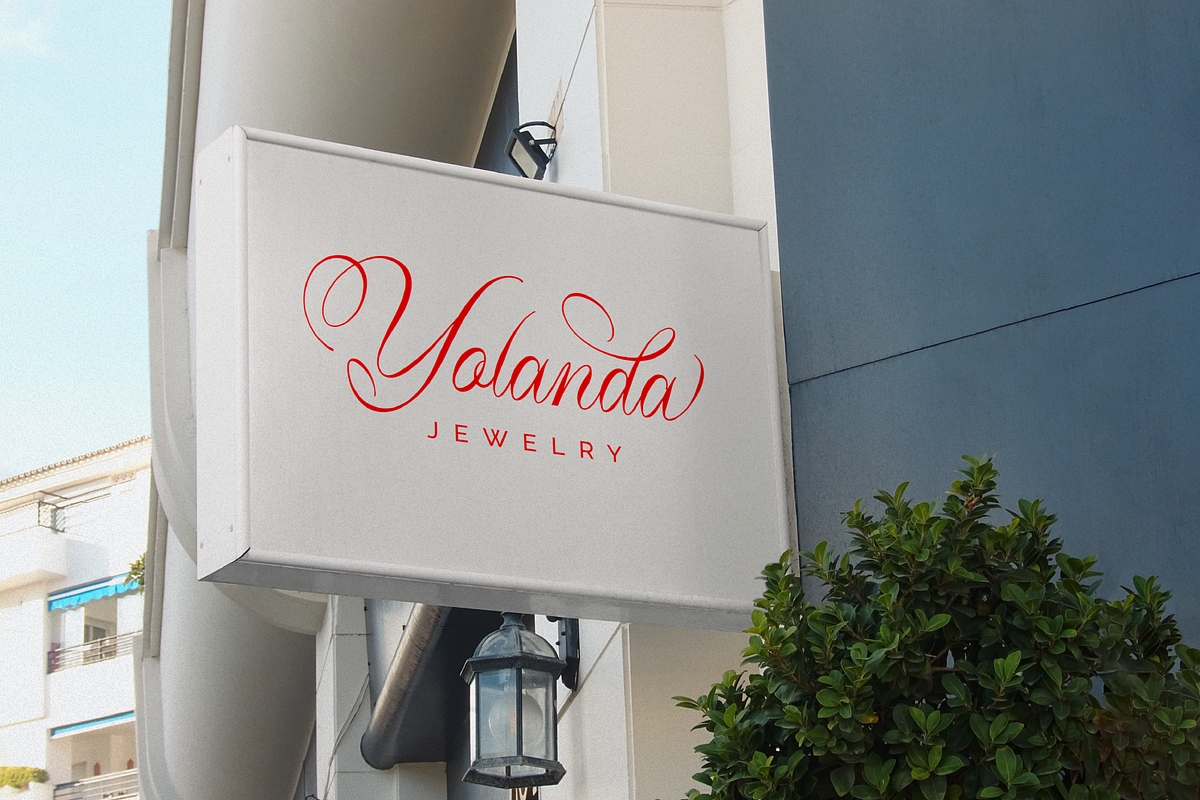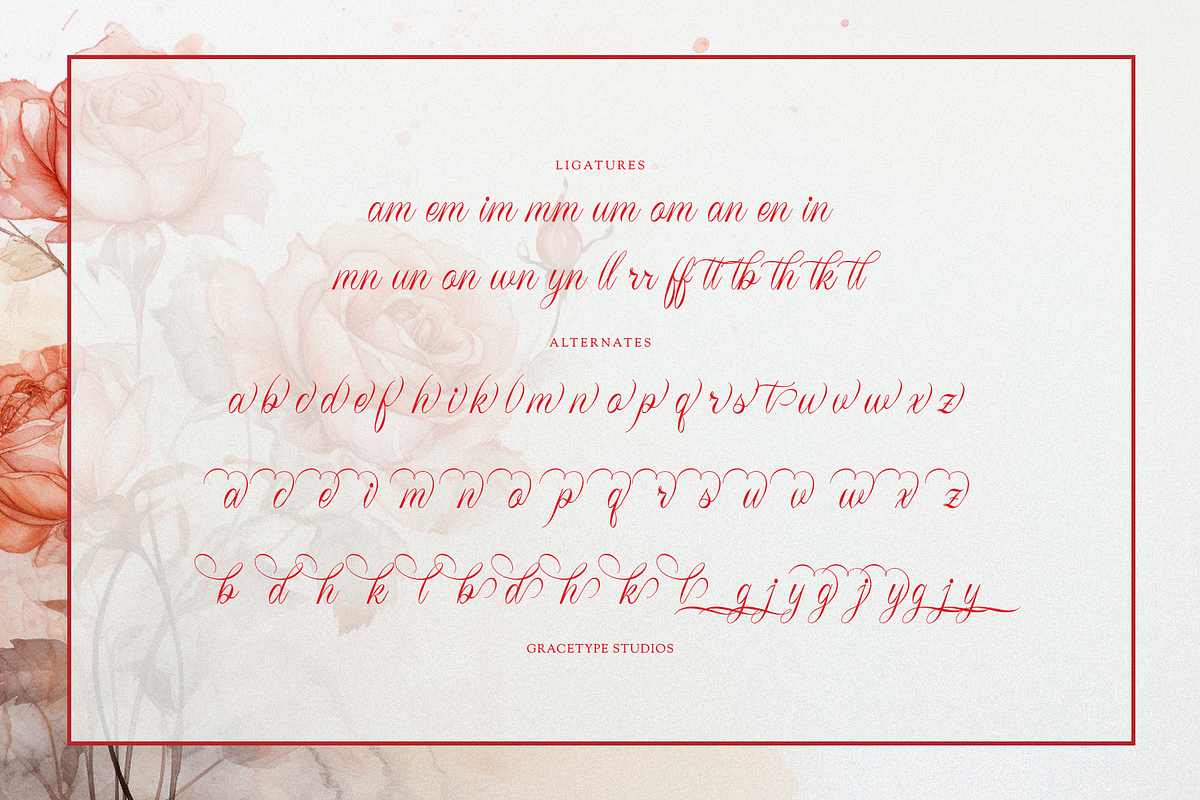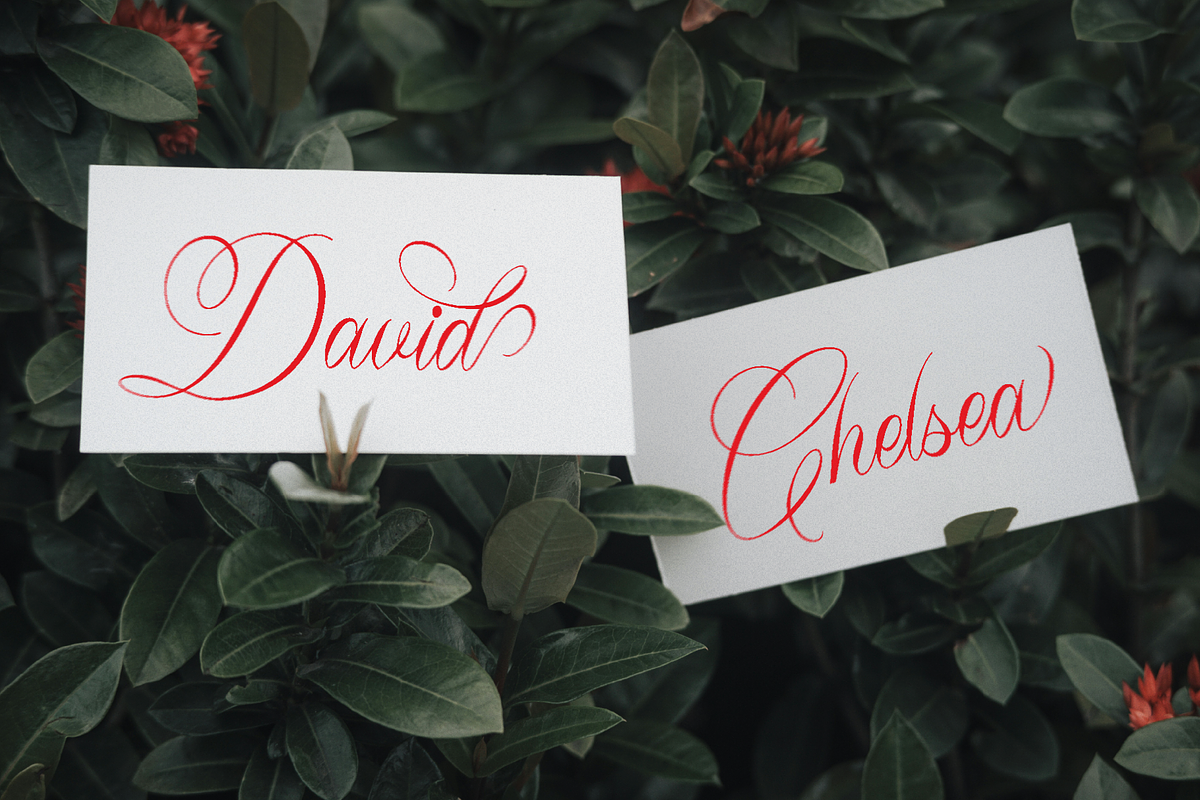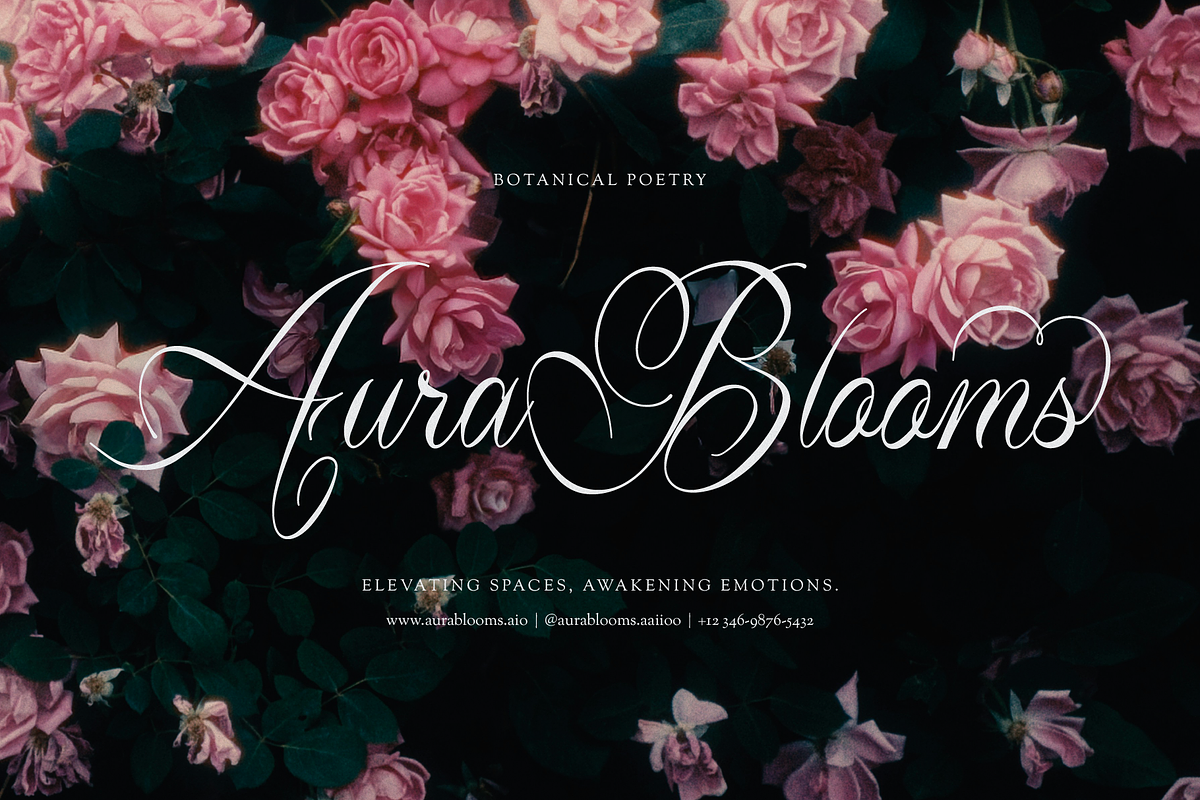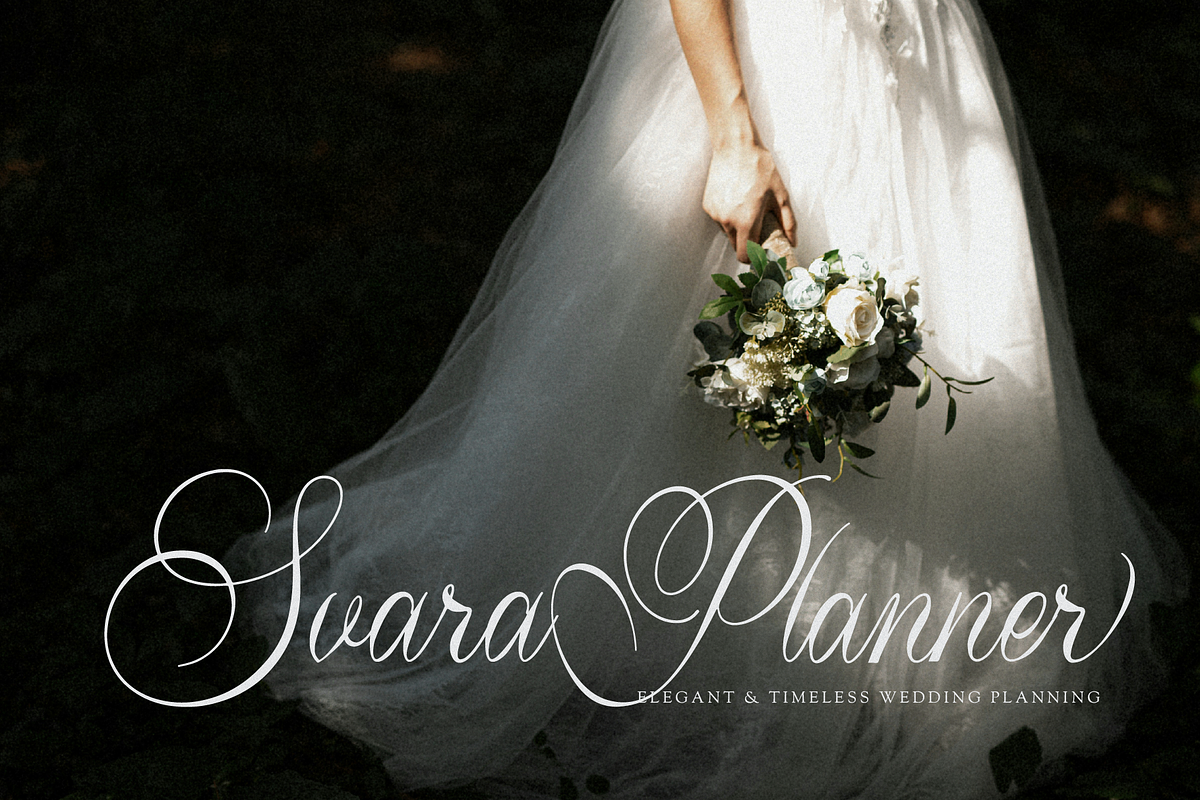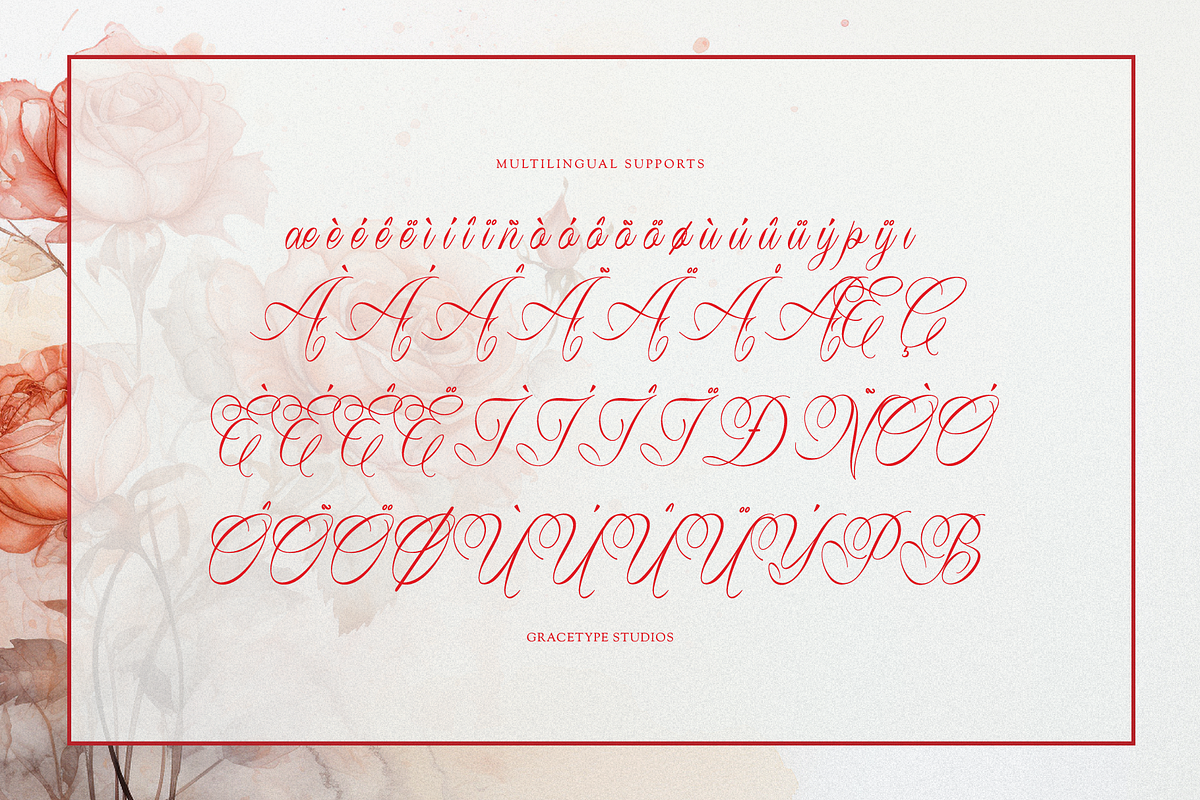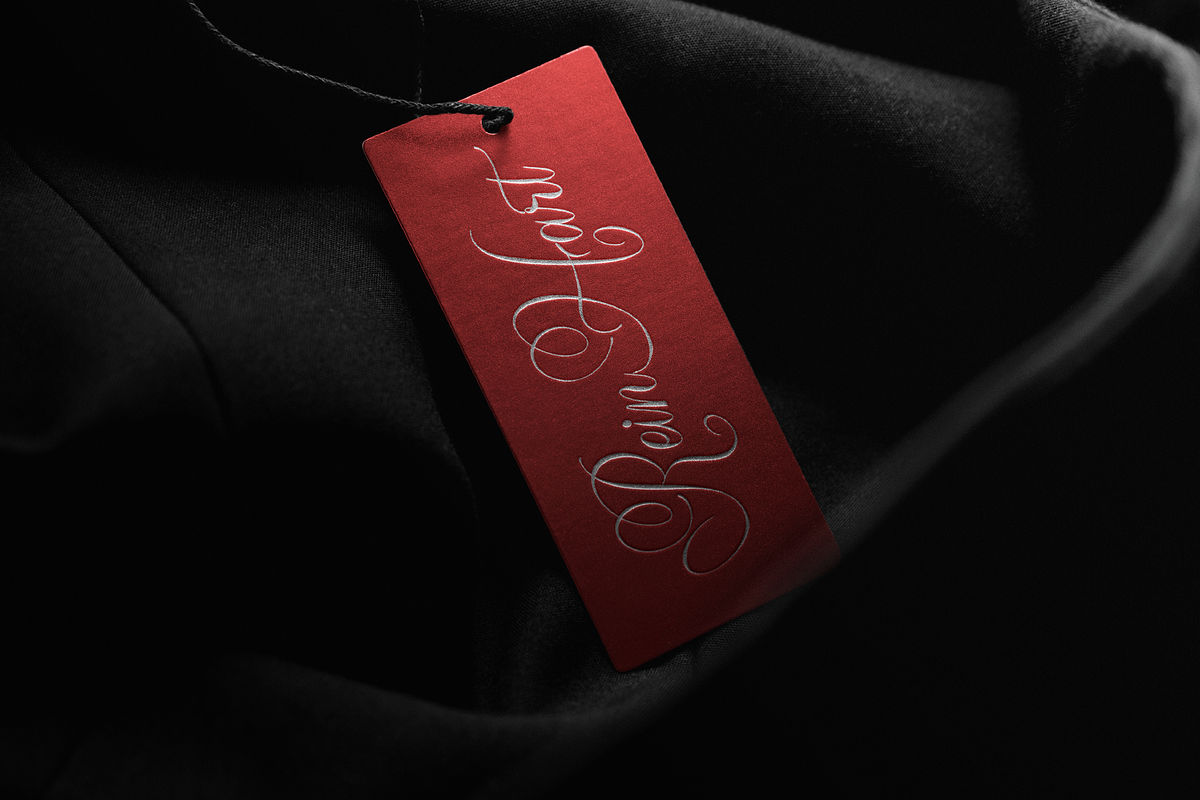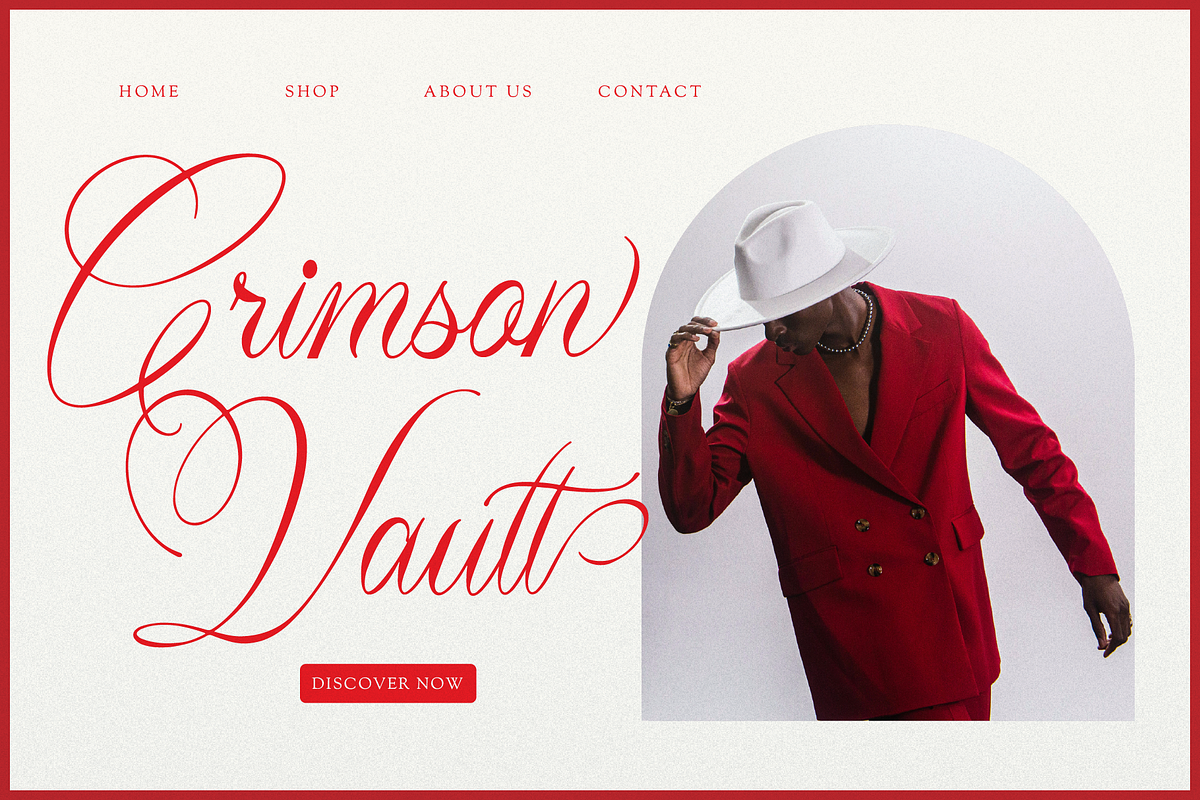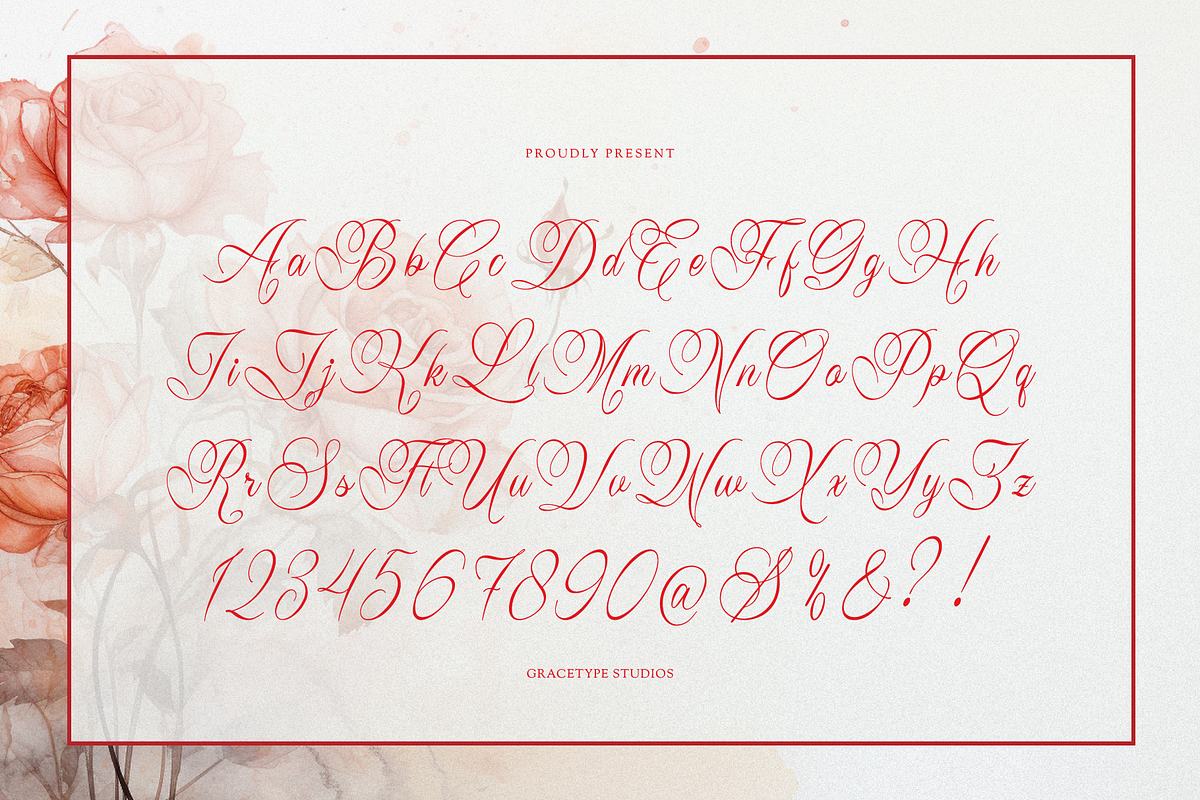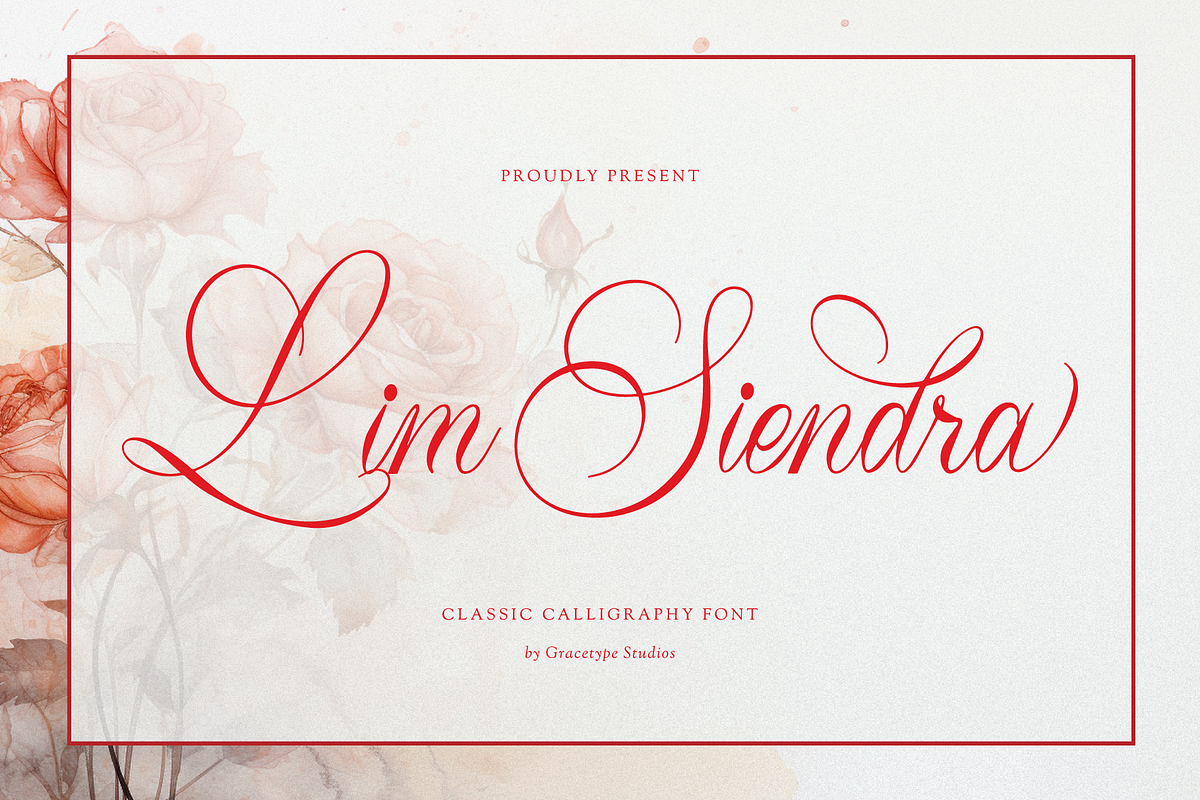
Lim Siendra | Classic Calligraphy
Lim Siendra | Classic Calligraphy, from Gracetypestudio, suitable for any projects such as: logos, branding projects, homeware designs, product packaging, mugs, quotes, posters, shopping bags, t-shirts, book covers, name card, invitation cards, greeting cards, label, photography, watermark, special events, and all your other lovely projects that need a Calligraphy taste.
Alternate and Ligature
Fonts include multilingual support